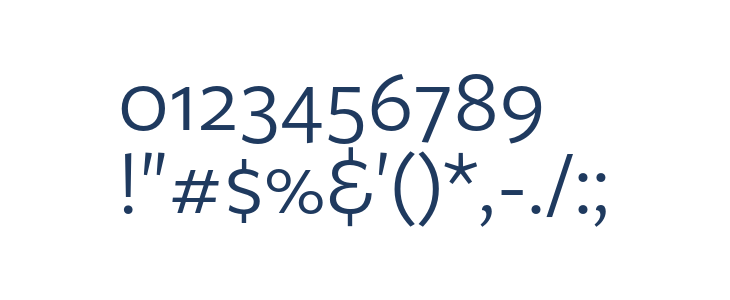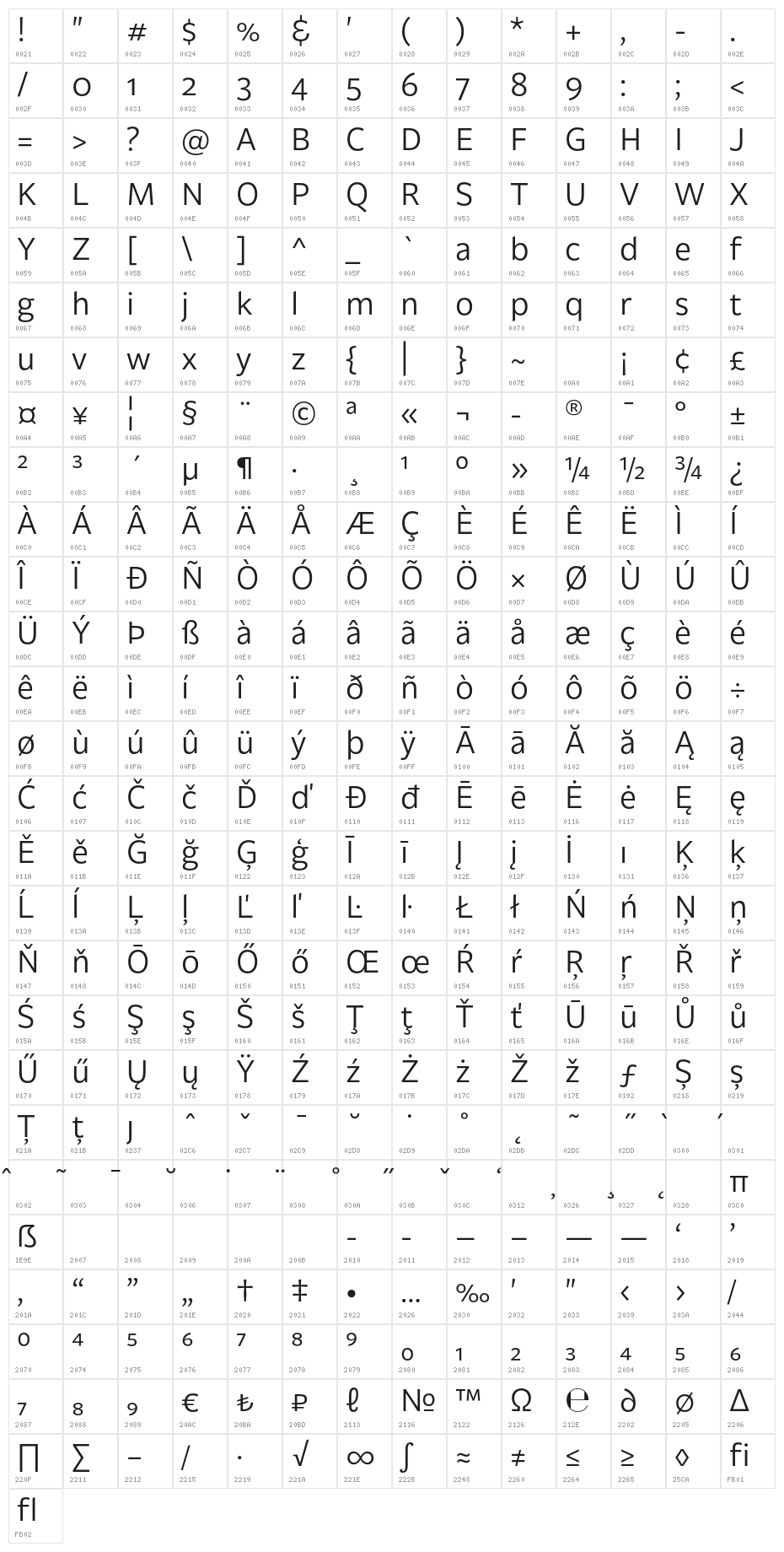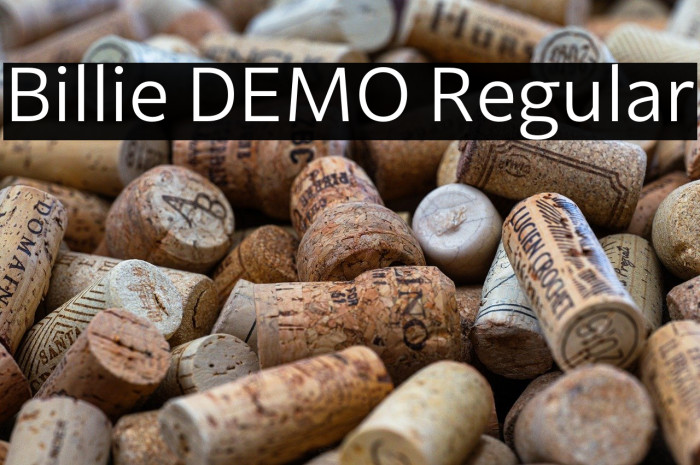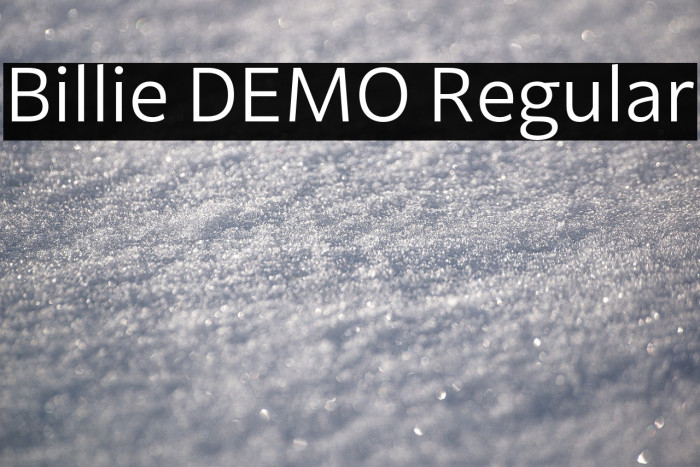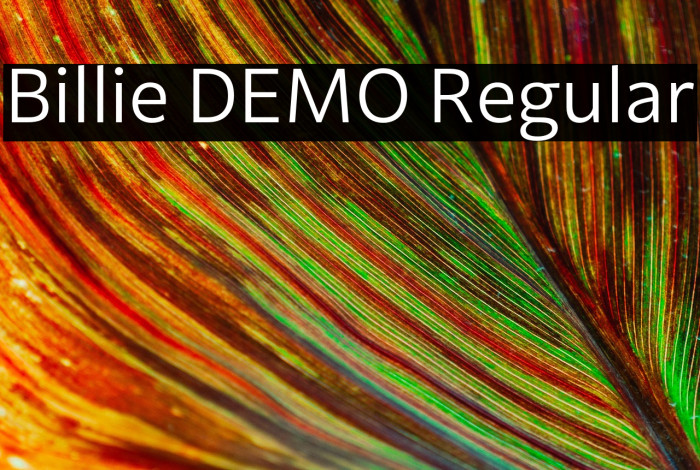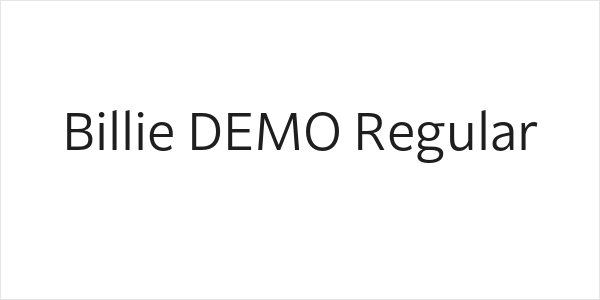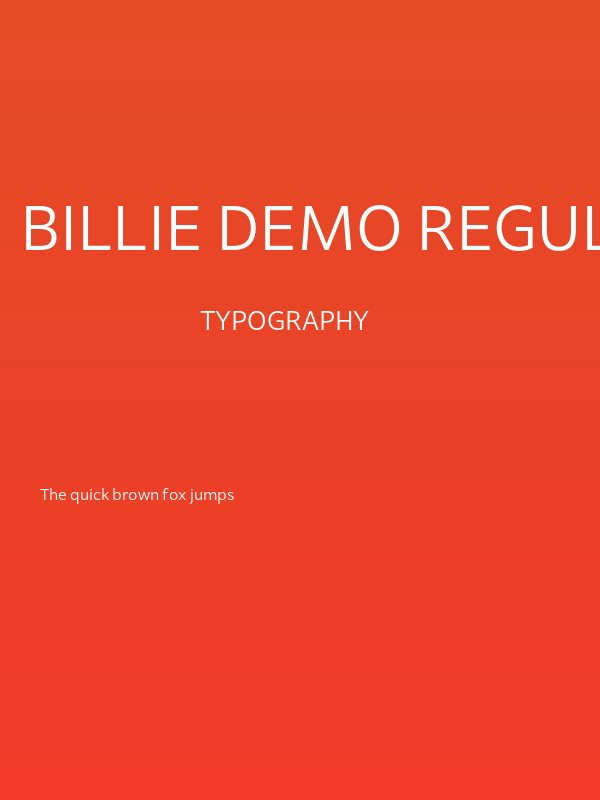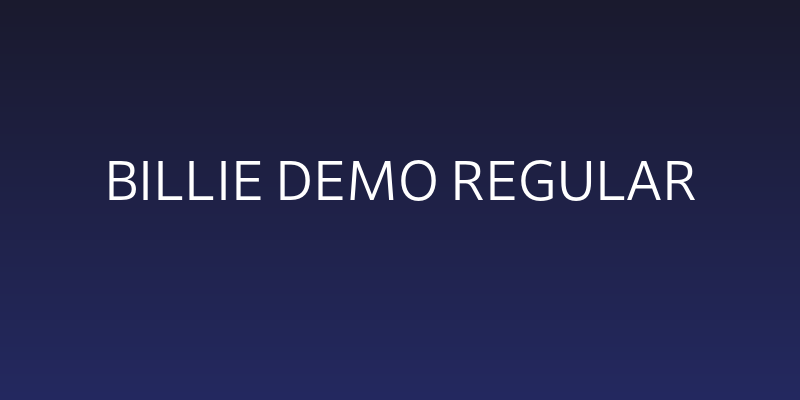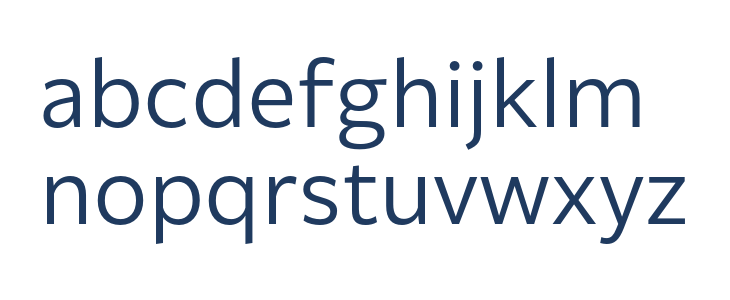
Billie DEMO Regular Font
Billie DEMO Regular Description
This font features a clean and modern sans-serif design, characterized by its simplicity and readability. The letters are well-proportioned with a consistent stroke width, offering a balanced and harmonious appearance. The uppercase and lowercase letters are distinct yet complementary, making it versatile for various design needs. The numerals are clear and legible, while the special characters are neatly integrated, maintaining the overall aesthetic. This font is suitable for both digital and print media, providing a professional and contemporary look.